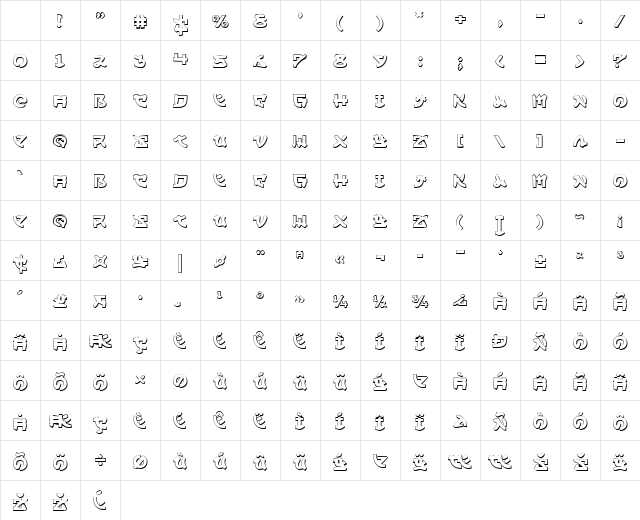
Complete Yama Moto 3D Regular glyph index. Displaying only characters natively supported by Yama Moto 3D Regular font.
Yama Moto 3D is a composed and adaptable typeface that performs quietly and consistently across a wide range of design contexts.